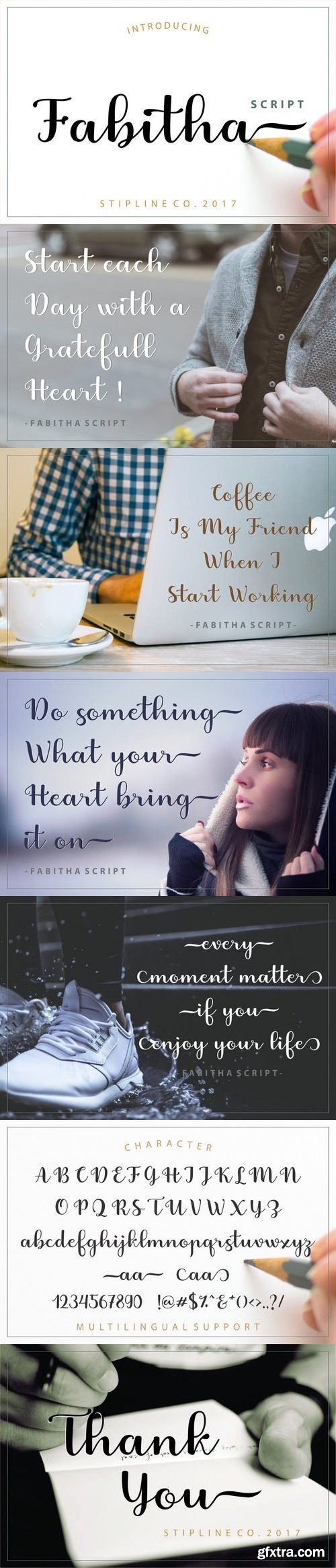
CM - Fabitha Script Upright 1897951
Proudly Present .. Fabitha Script goes with Modern and Natural Calligraphy, ready to give your design project with Fresh and Fabulous Style. This font have an 177 Standard Glyph + 109 Glyph Alternate in Open Type Standard Format. Suitable for various purpose such as digital lettering, headings, logos, wedding invitation, t-shirt, letterhead, signage, lable, news, posters, badges, branding materials, t-shirt, print, business cards, quotes, logo, poster, and suitable for any graphic design project. Fabitha Script comes as a single font file packed full of great features. It contains a full set of lower & uppercase letters, a large range of punctuation, numerals, and multilingual support. The font also contains several swashes and stylistic alternates for those who have open type capable software (e.g. Photoshop/Illustrator).